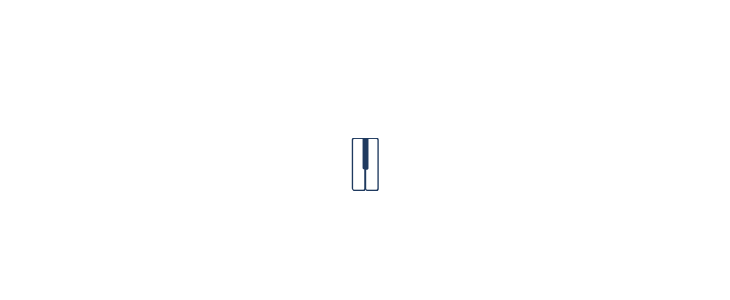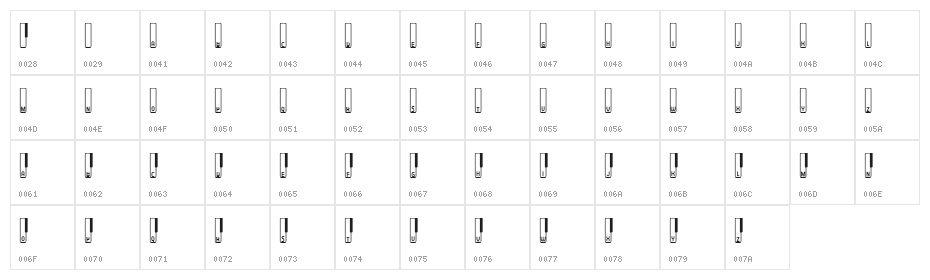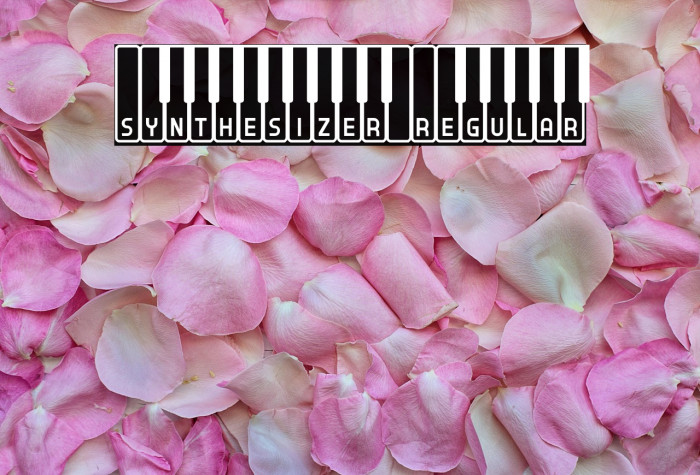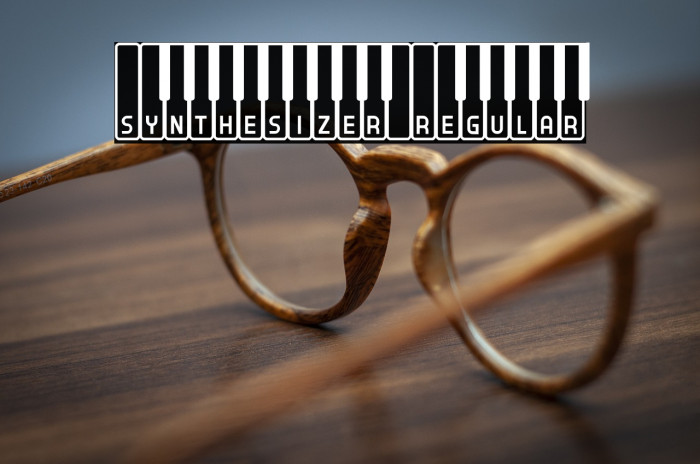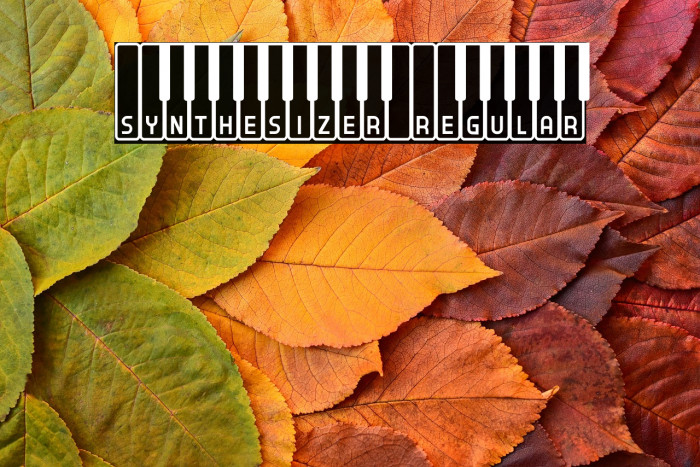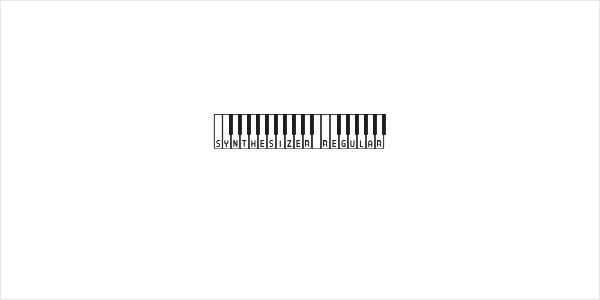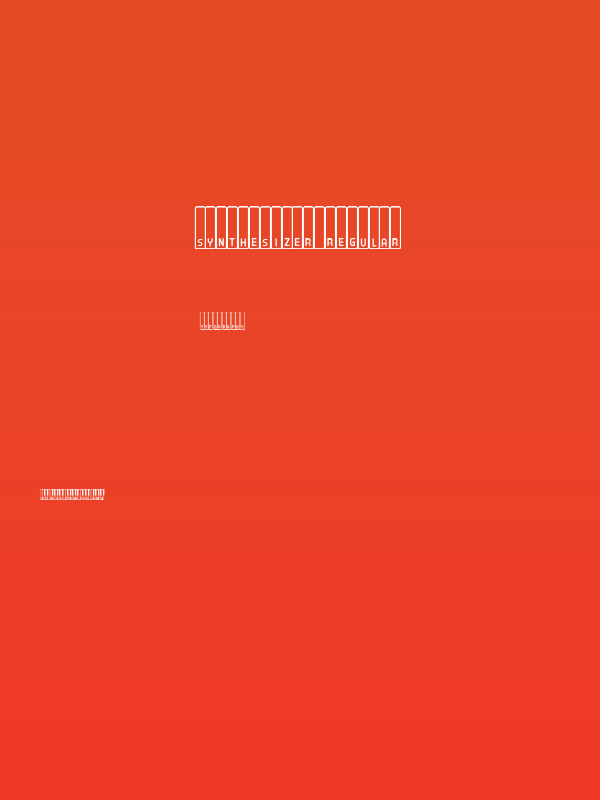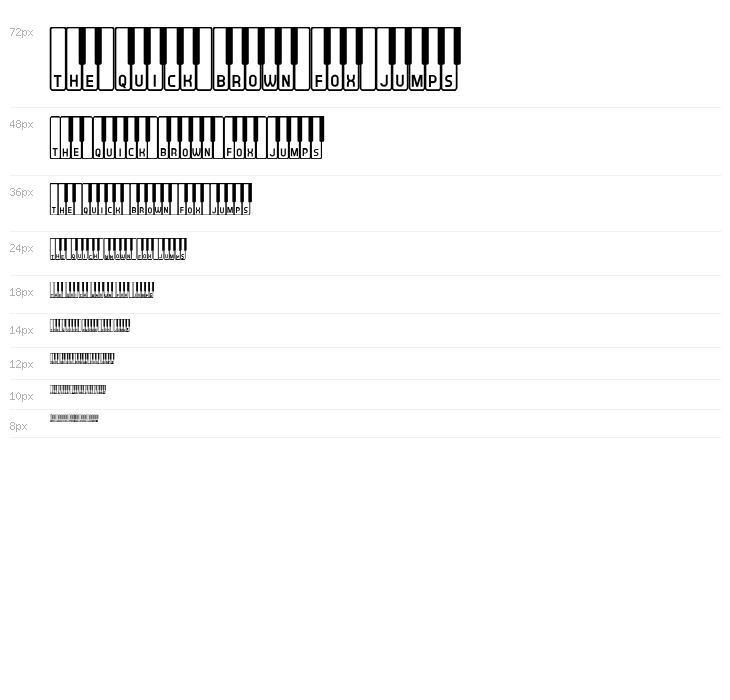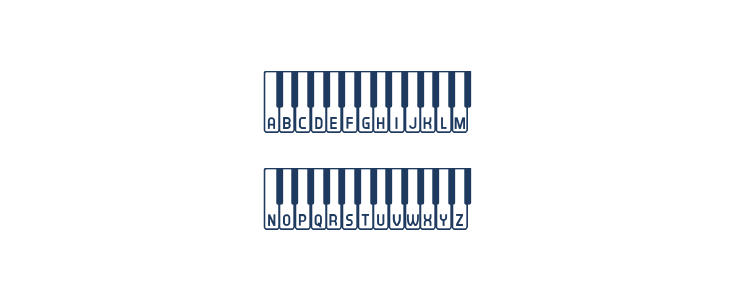
Synthesizer Regular Font
Synthesizer Regular Description
This font is creatively designed to resemble piano keys, with each character fitting neatly within the outline of a key. The uppercase letters are bold and clear, making them stand out against the structured background. The font's unique design merges musical elements with typography, creating a visually striking and thematic appearance. The characters are evenly spaced, ensuring readability while maintaining the aesthetic of a piano keyboard. This font is perfect for projects that aim to incorporate musical themes or require a playful yet sophisticated look.
| Use Case | Logos, Headlines, Posters |
| Proposed Projects | Ideal for music-related branding, event posters, album covers, and educational materials. |